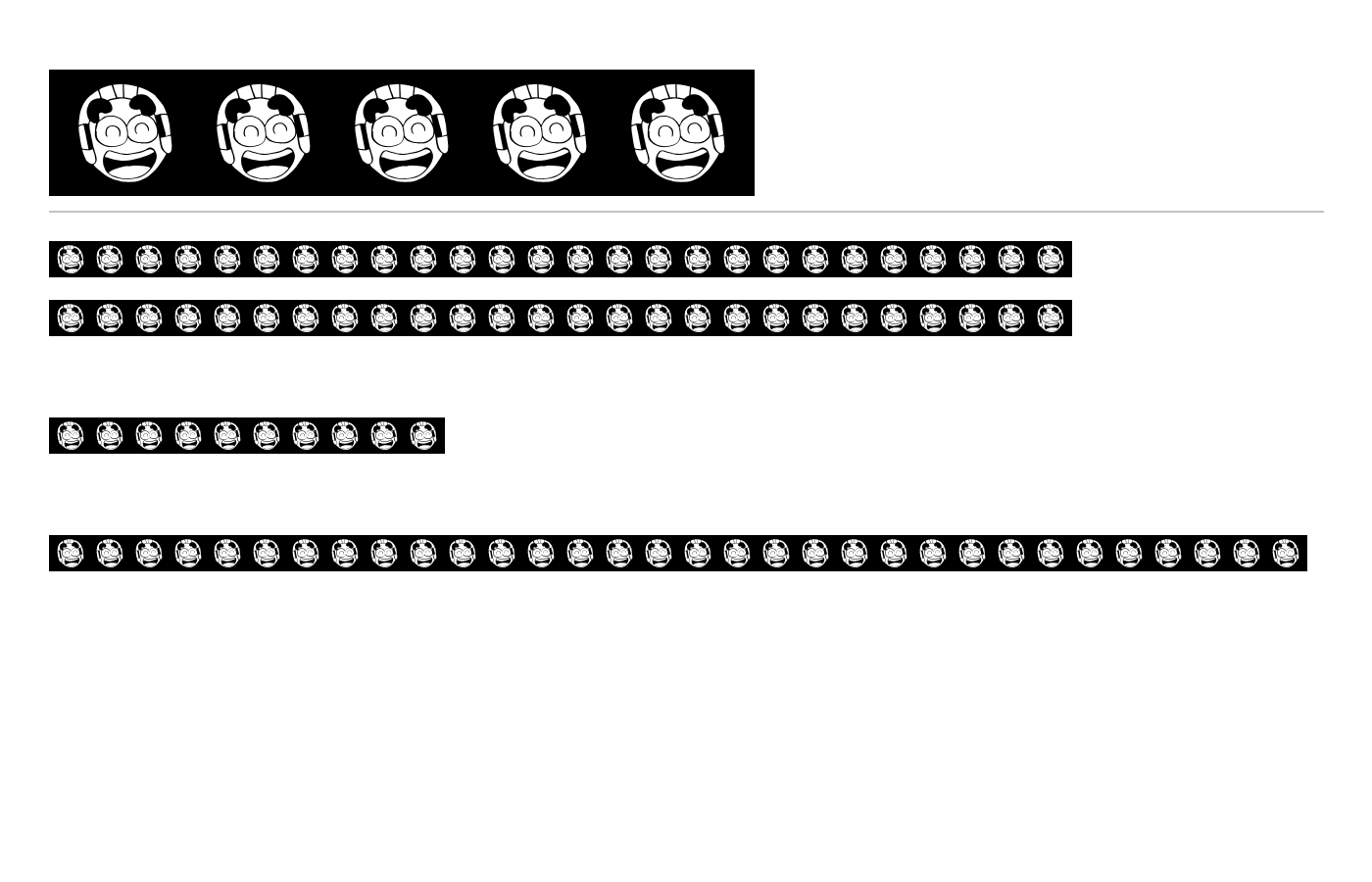
The BADUY font is a playful and highly stylized display typeface featuring cartoonish face icons rather than traditional letterforms. Its unique design makes it ideal for fun, creative projects that require a distinctive and whimsical look, such as logos, posters, or children's branding, where an informal and engaging vibe is desired. This font stands out as a decorative element rather than a text font, perfect for adding personality and charm to visual communications.
BADUY Font
About BADUY Font